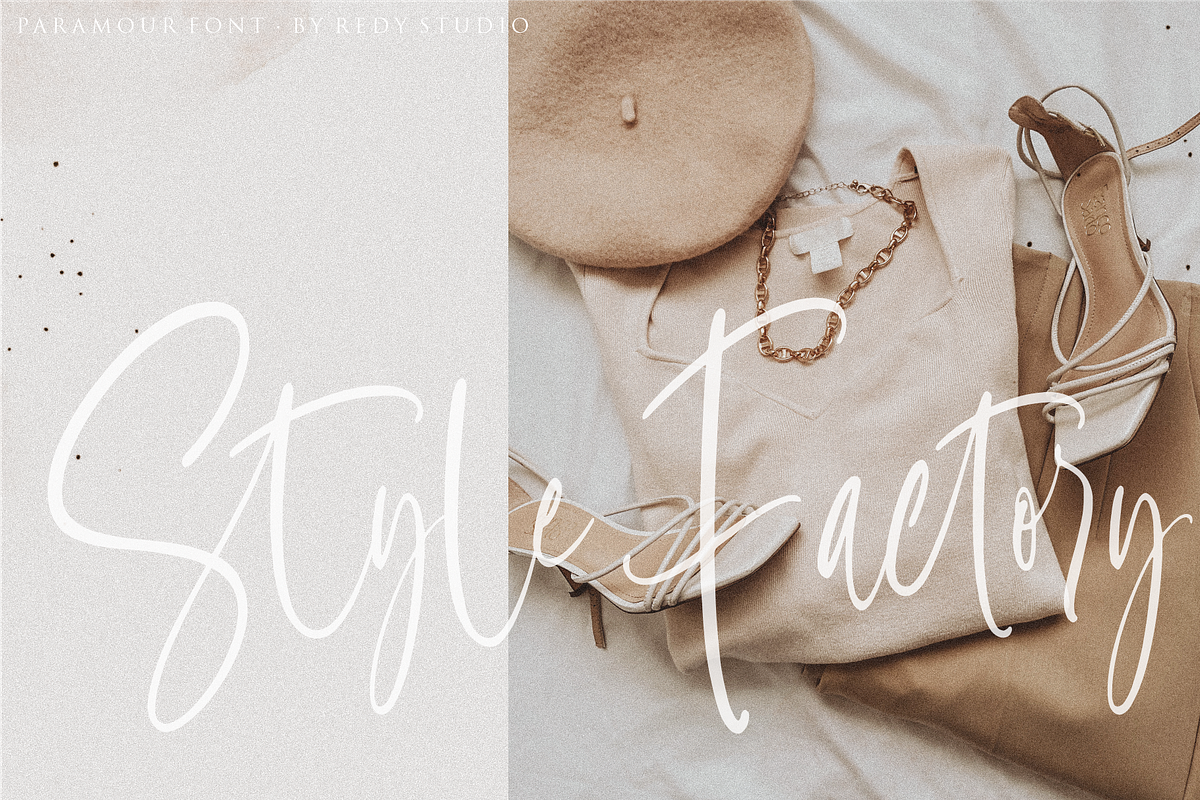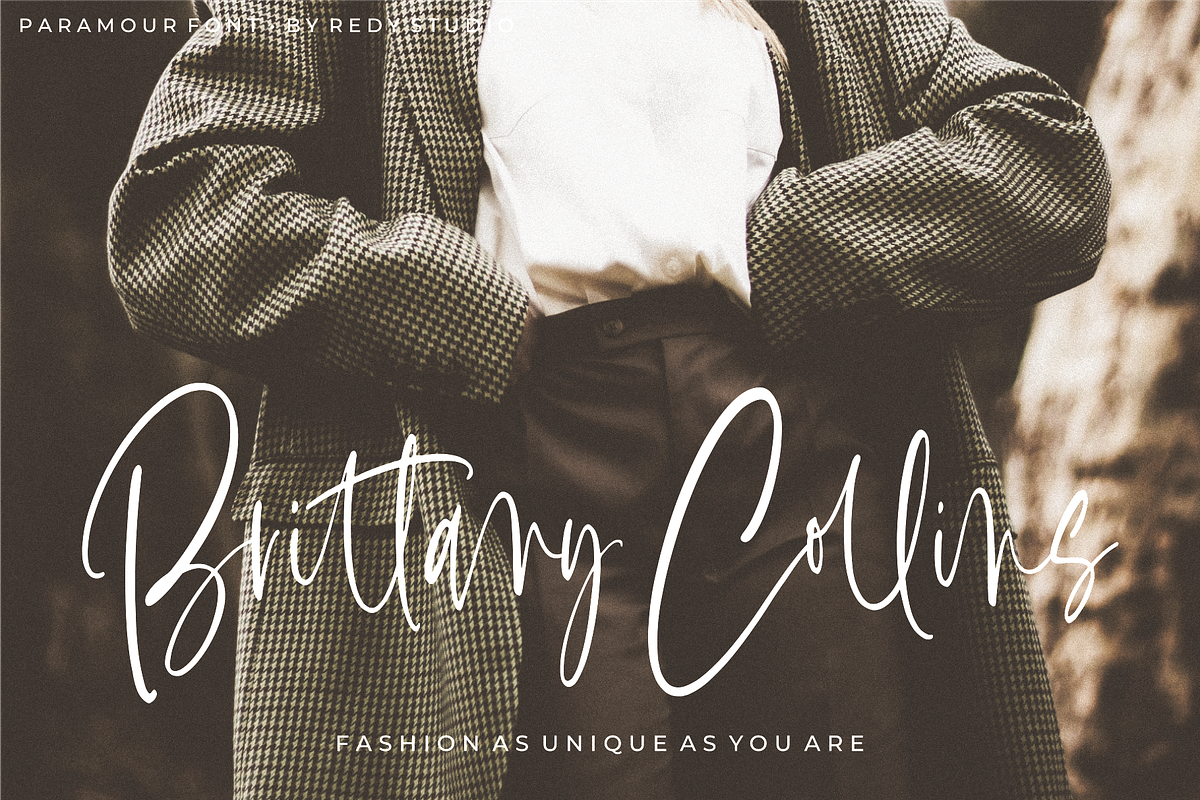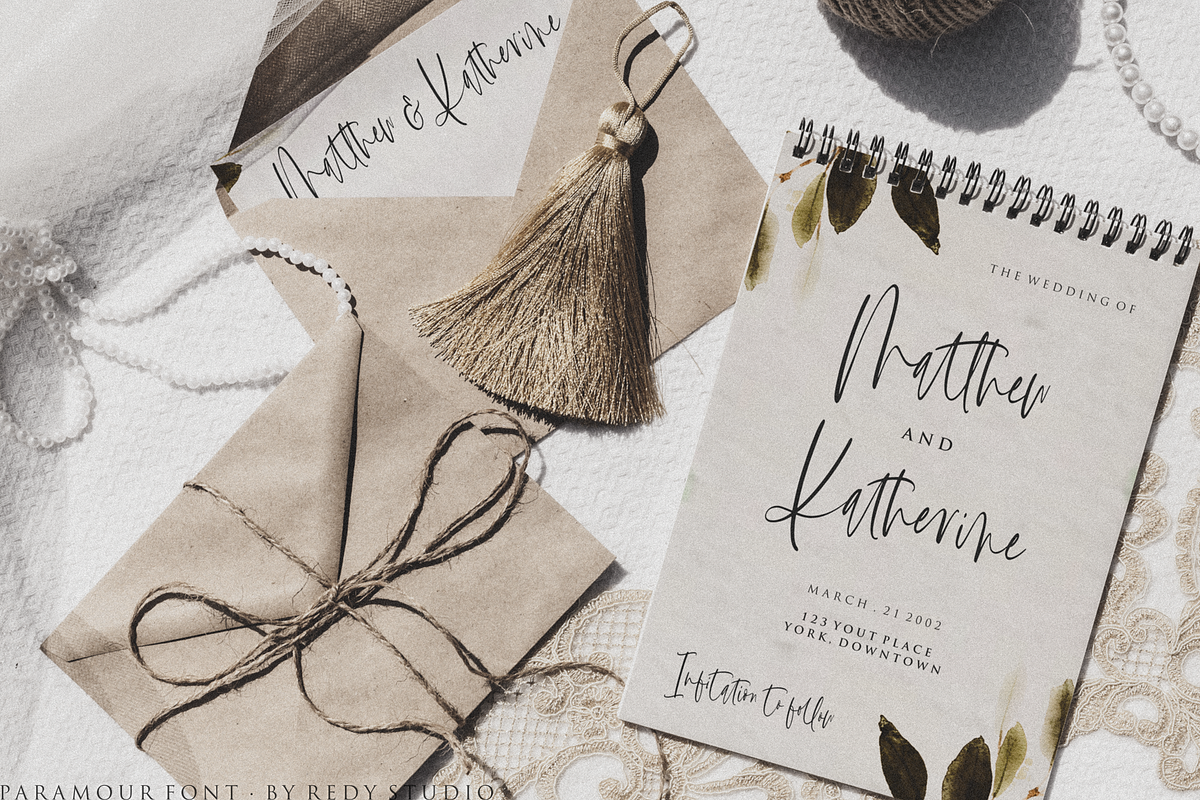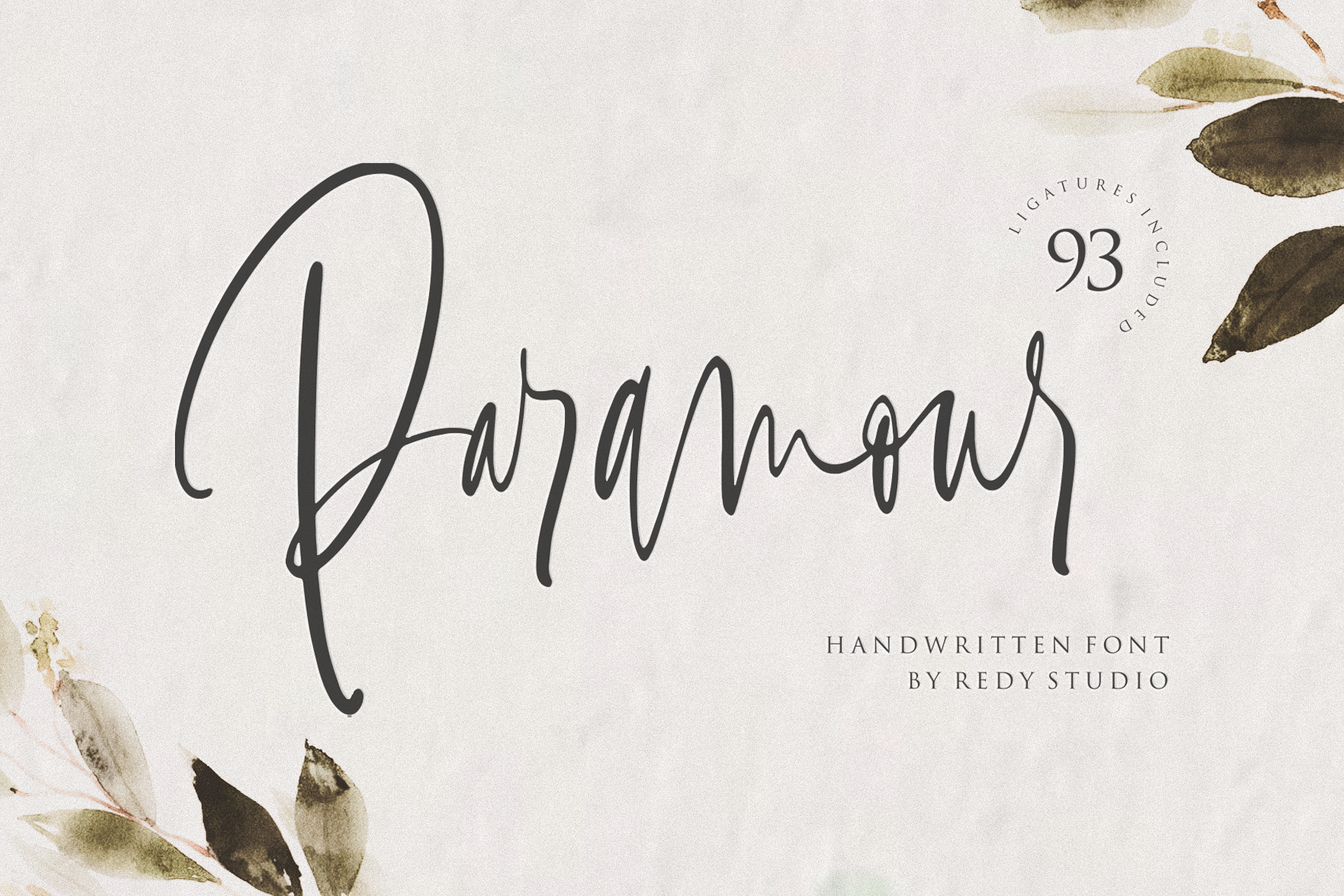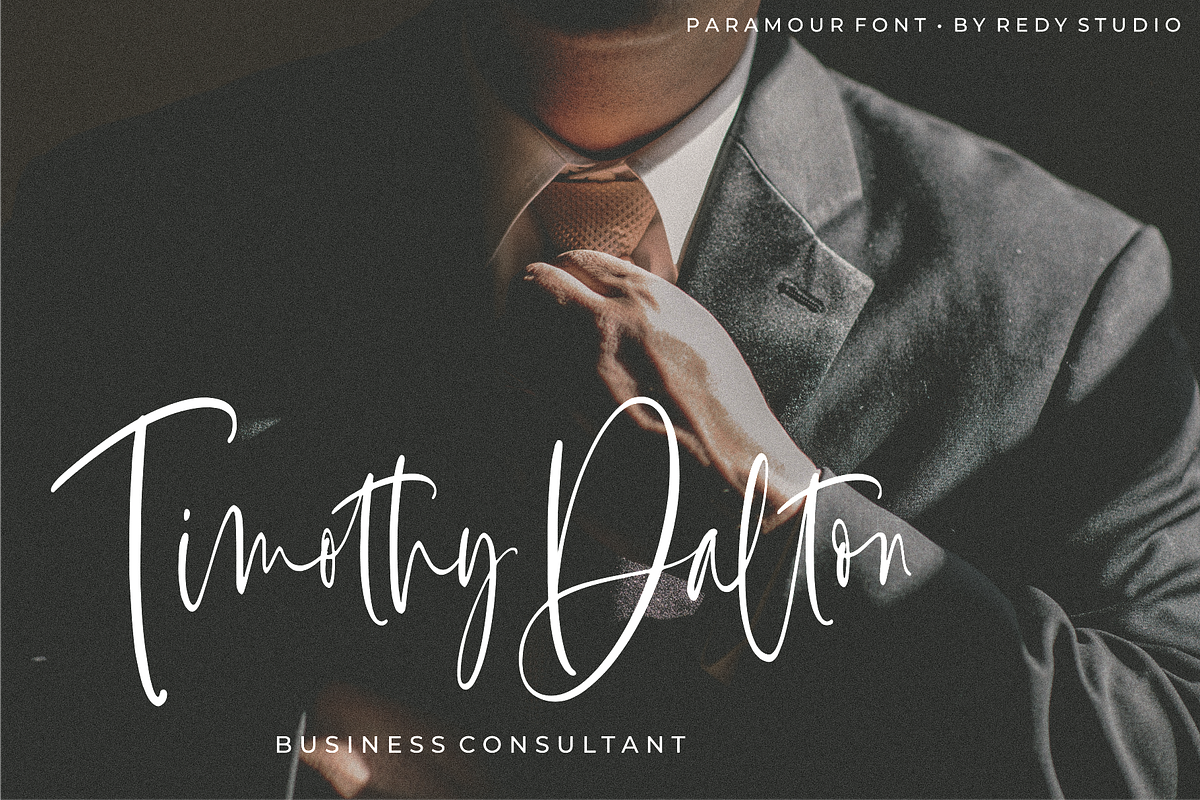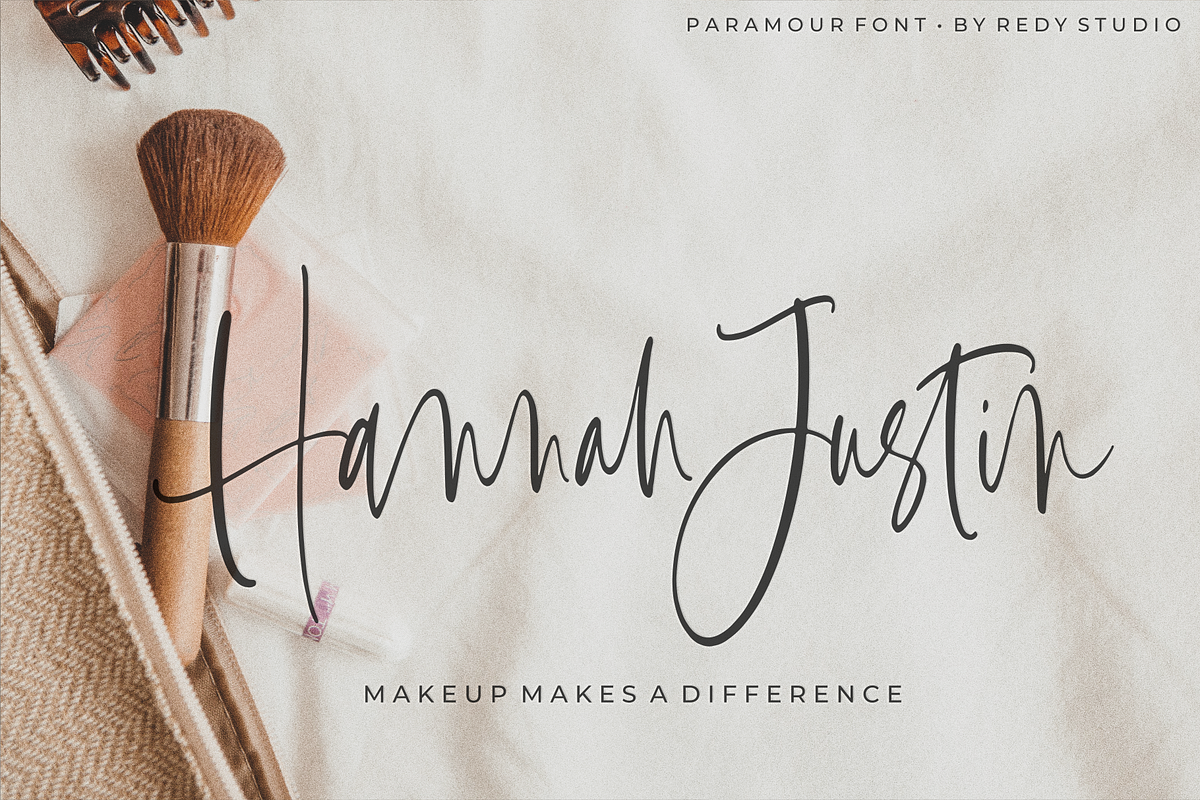
Paramour handwritten font
Paramour - handwritten font by Redy Studio
Paramour is a handwritten font that is the perfect way to add some flirty elegance to your design. Use it to create inked-style logos, wedding stationery & photographer watermarks, or to add a handwritten look to your website's typography. Paramour includes a full set of gorgeous uppercase and lowercase letters, numerals, a large range of punctuation, and 93 ligatures. This handcrafted typeface has been engineered to perfectly fit together.
Paramour Features:
- A full set of upper & lowercase characters
- 93 Gorgeous ligatures
- Multilingual symbols